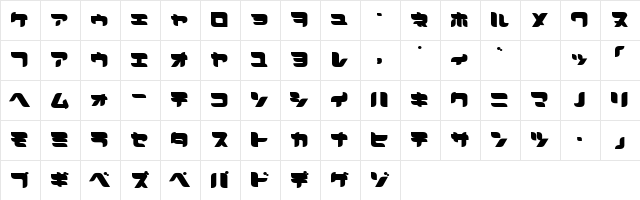
Complete LEMON J glyph index. Displaying only characters natively supported by LEMON J font.
LEMON is a composed and adaptable typeface that performs quietly and consistently across a wide range of design contexts.